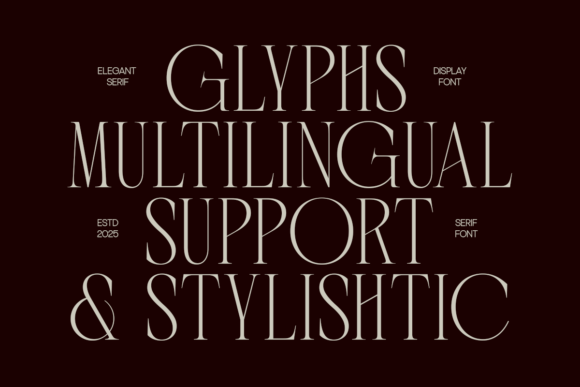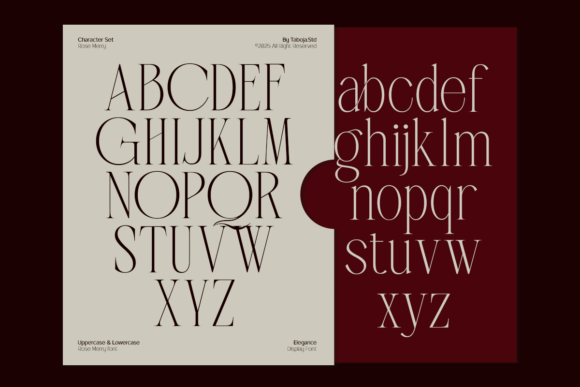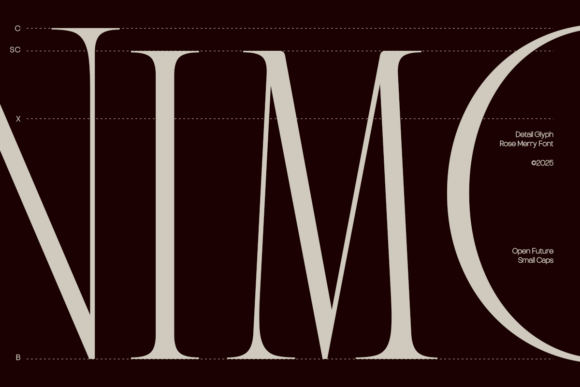
Introduction to Rose Merry Font
Rose Merry is a luxury serif display typeface crafted for elegant branding and high-end editorial design.
The font combines classic serif foundations with modern refinement, resulting in a sophisticated typographic voice With its high contrast, sharp terminals, and graceful letterforms, Rose Merry excels in headlines, logos, and editorial compositions.